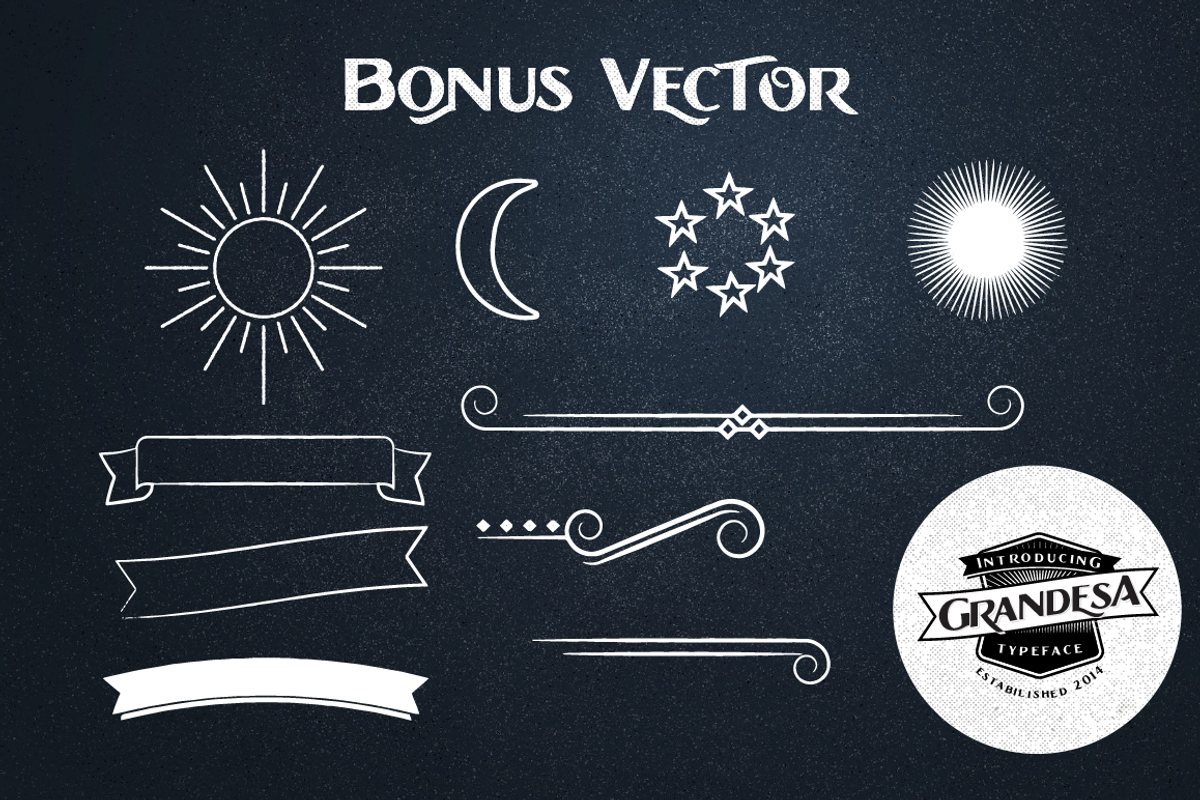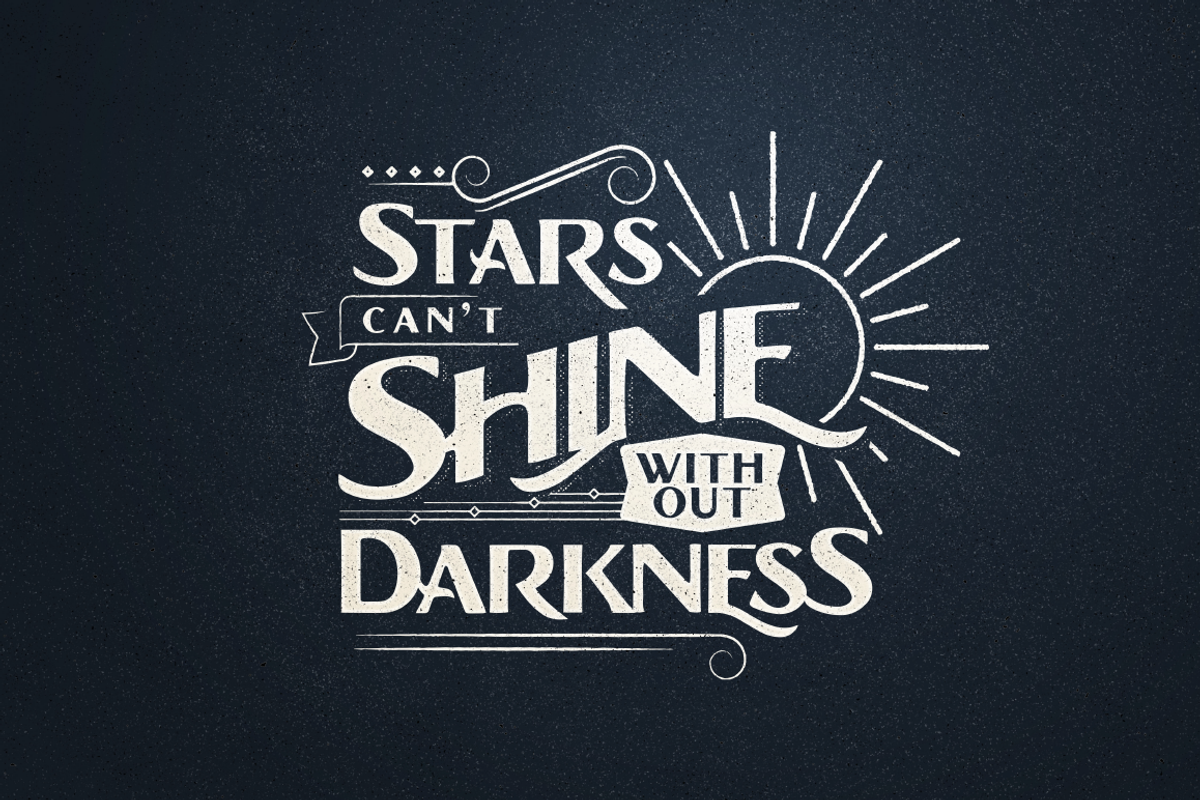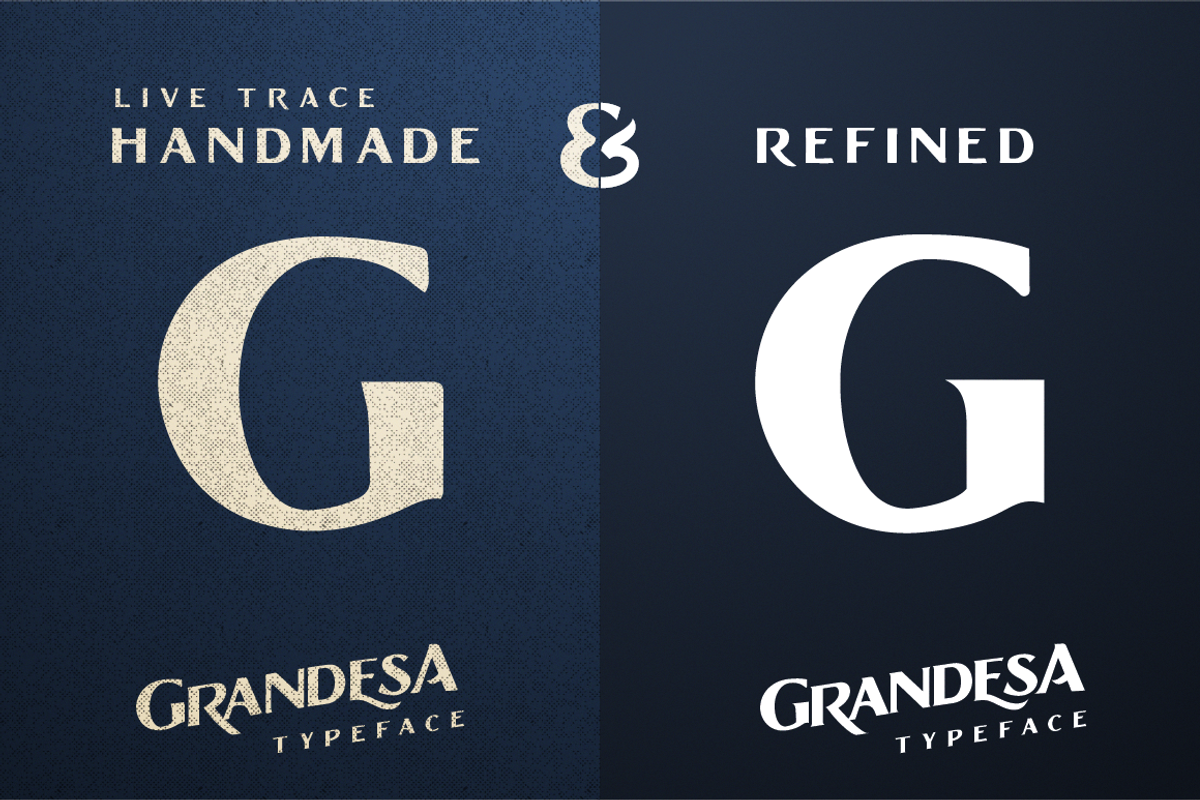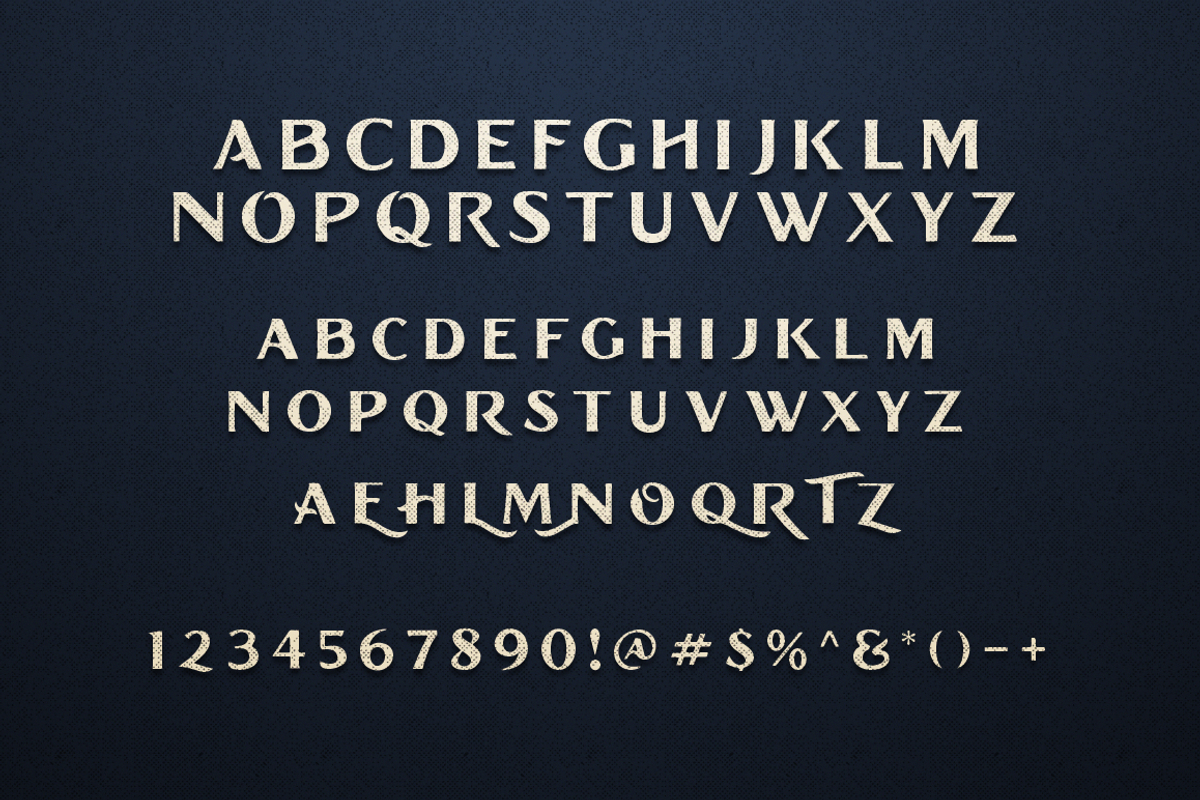
Grandesa Typeface
Grandesa Typeface by Adam Fathony is a font selected for branding, posters, packaging, typography.
- This font is OpenType features with Stylistic Alternates and Contextual Alternate in some characters that allows you to mix and match pairs
Why Grandesa Typeface is worth a look
Grandesa Typeface by Adam Fathony fits naturally into Branding, posters, packaging, typography.